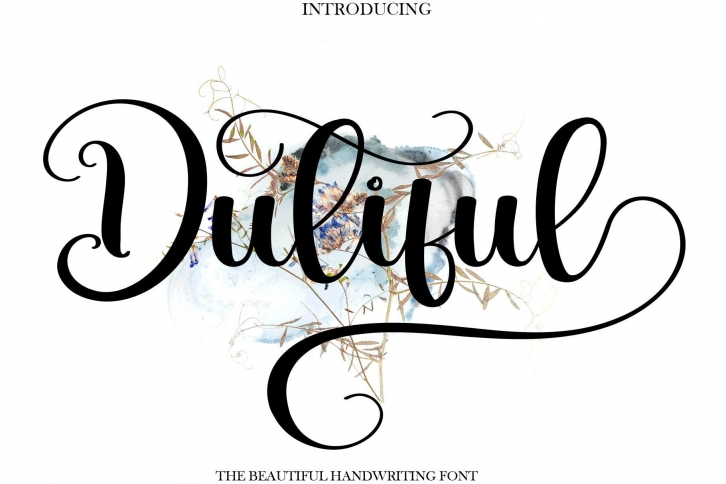
Dutiful is a sweet and thin serif font. Featuring characters that dance along the baseline, this font will add a luxury spark to any design project that you wish to create!